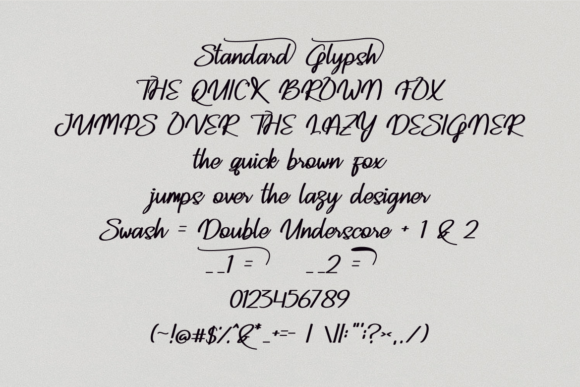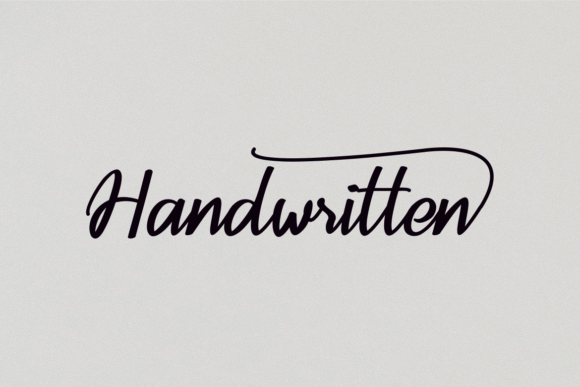
Introduction to Qardilla Duo Font Font
Fonts play a crucial role in design, and the Qardilla Duo Font font is a typeface that brings both character and versatility to any project. Whether you’re working on a branding project, a website, or a print design, the Qardilla Duo Font font offers a unique style that can elevate your work.
Qardilla is stylish script duo font that has an elegant, classy, and modern look.
Itβs a great font for fashion, apparel projects, signature, album covers, logos, branding, magazines, social media, or anything that needs a refined accent .
Key Features of Qardilla Duo Font Font
Why Choose Qardilla Duo Font Font?
The Qardilla Duo Font font is more than just a typeface β it’s a design tool that helps you communicate your message with style and clarity. Its unique character set and versatile design make it suitable for a wide range of applications, from elegant invitations to bold headlines.
With its carefully crafted letterforms and balanced proportions, the Qardilla Duo Font font ensures readability and visual appeal across all mediums.
What makes Qardilla Duo Font font special?
The Qardilla Duo Font font stands out with its unique design, exceptional readability, and versatility across various design applications.